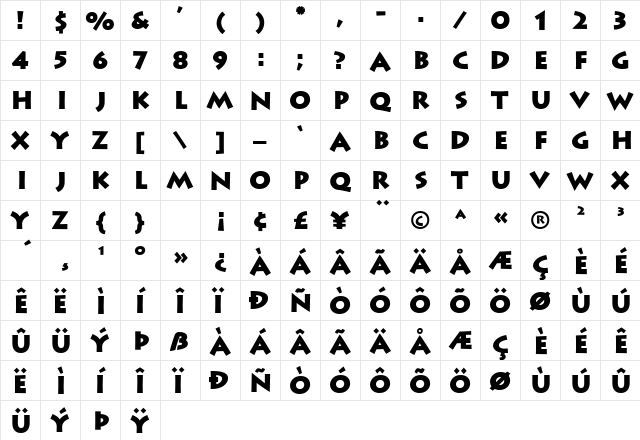
ListiumBlack Regular
Design Context for ListiumBlack Typeface
ListiumBlack offers clean, dependable letterforms without strong stylistic allegiance, making it a practical choice for designers who need flexibility.
Pro Tip: Use ListiumBlack in both headline and body roles to test its range before committing to a single application.